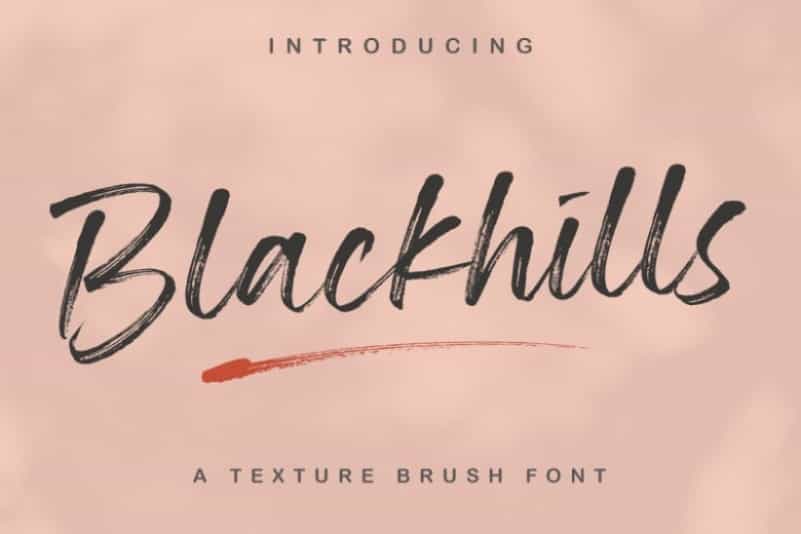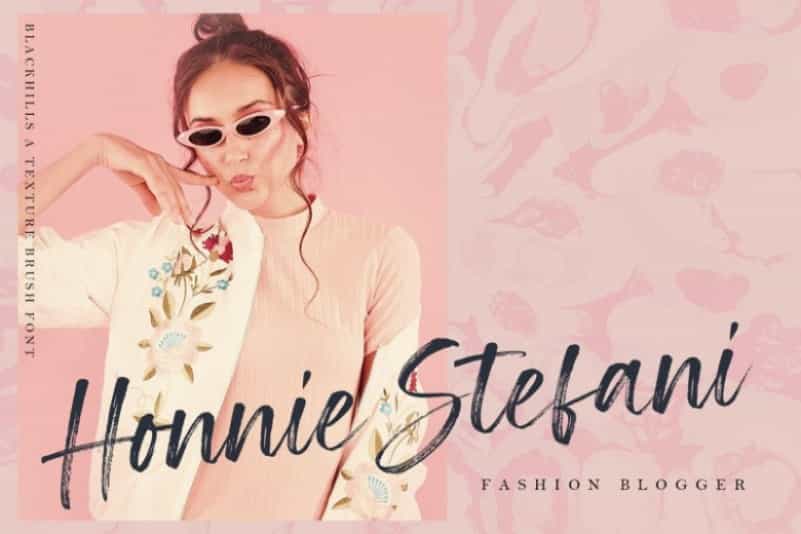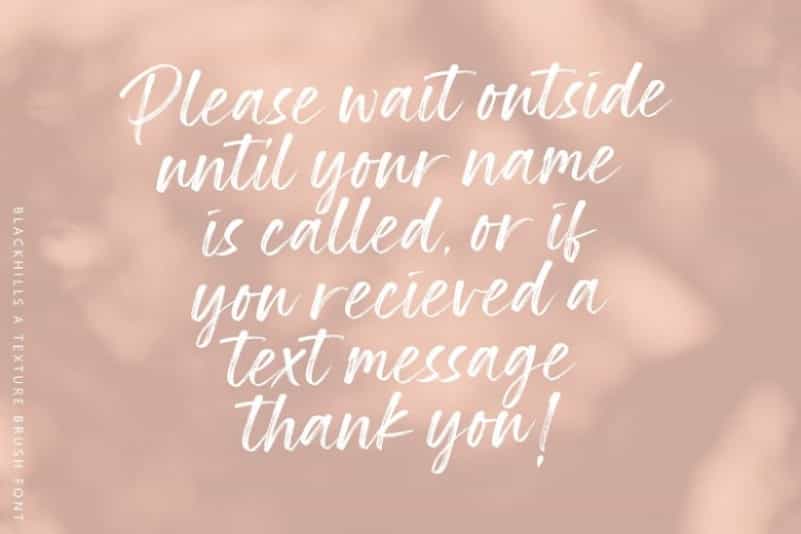
Blackhills is a script brush type font with a roughness. I created Blackhills by using a rough brush on paper. At Blackhills I write a traditional script with both uppercase and lowercase letters that are similar but still readable. I propose another way to show the difference between uppercase and lowercase letters, trying to create a visual effect of my writing.